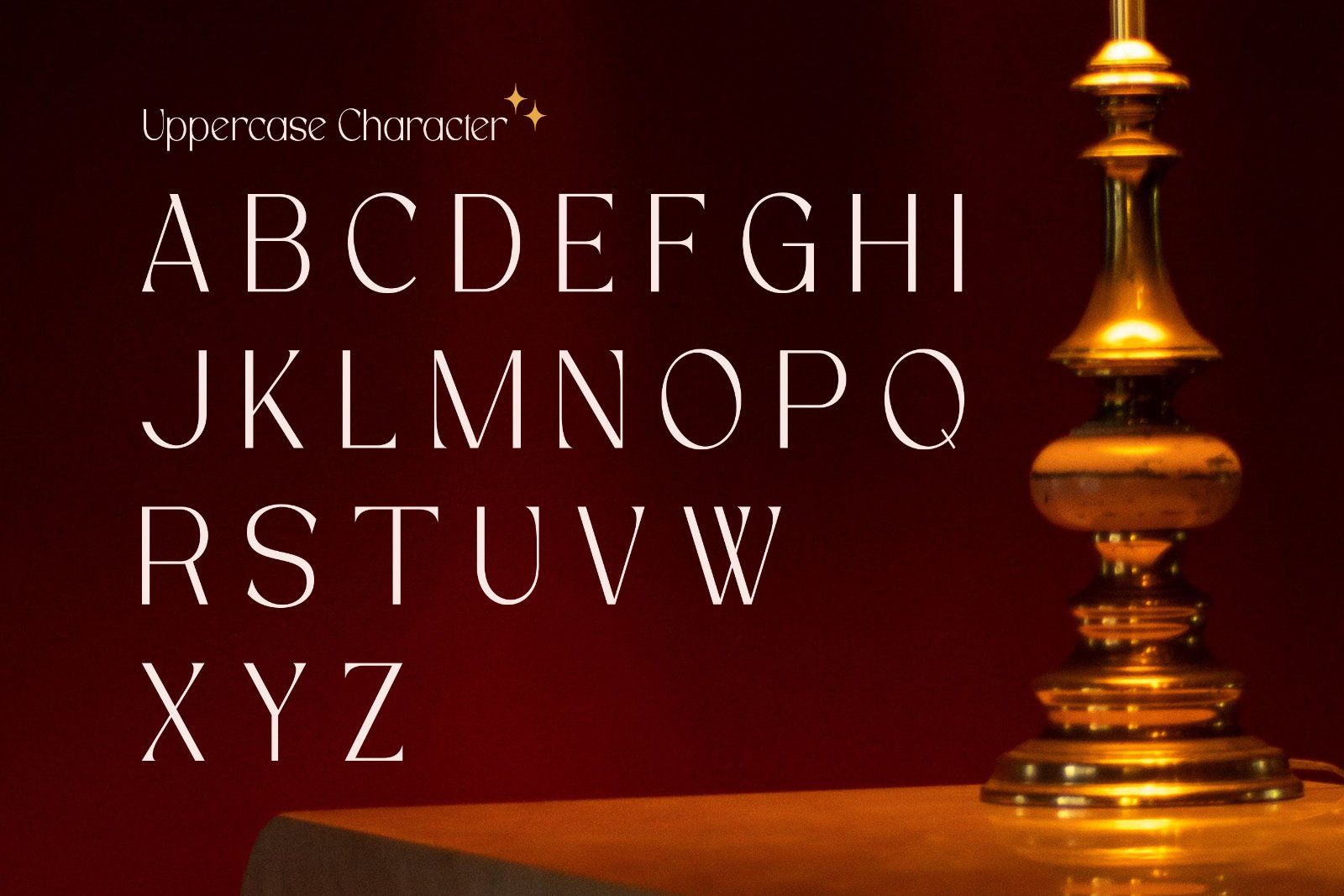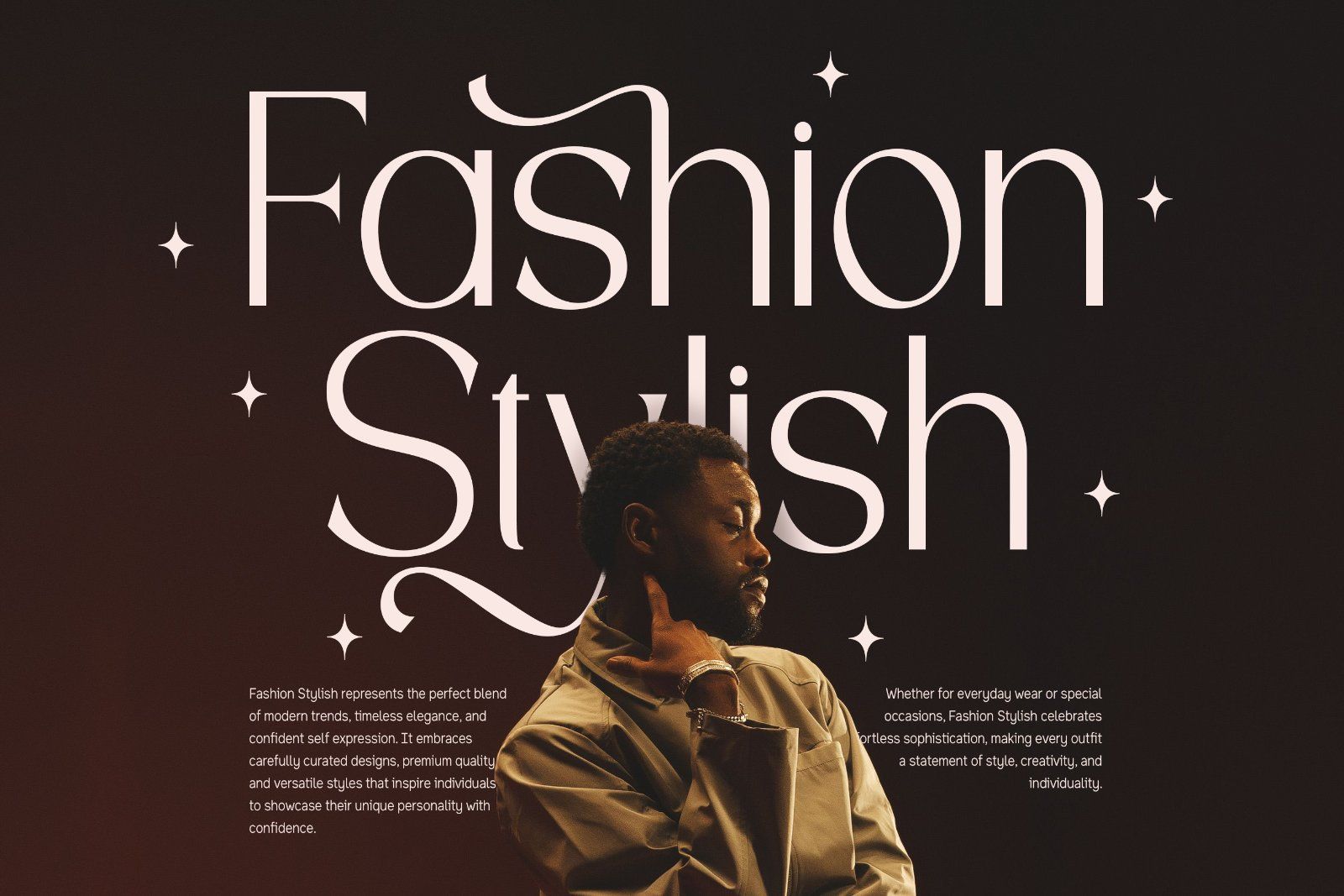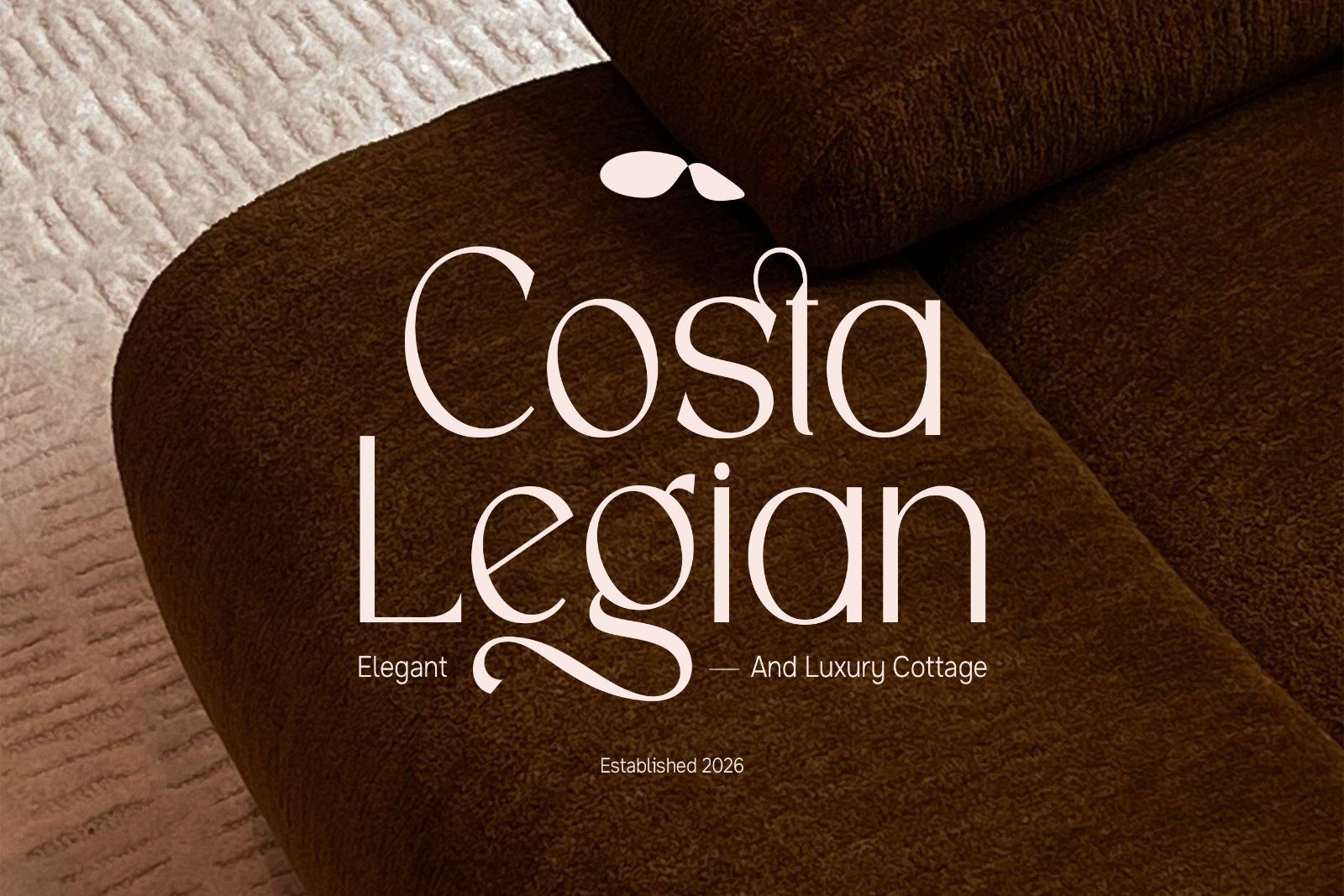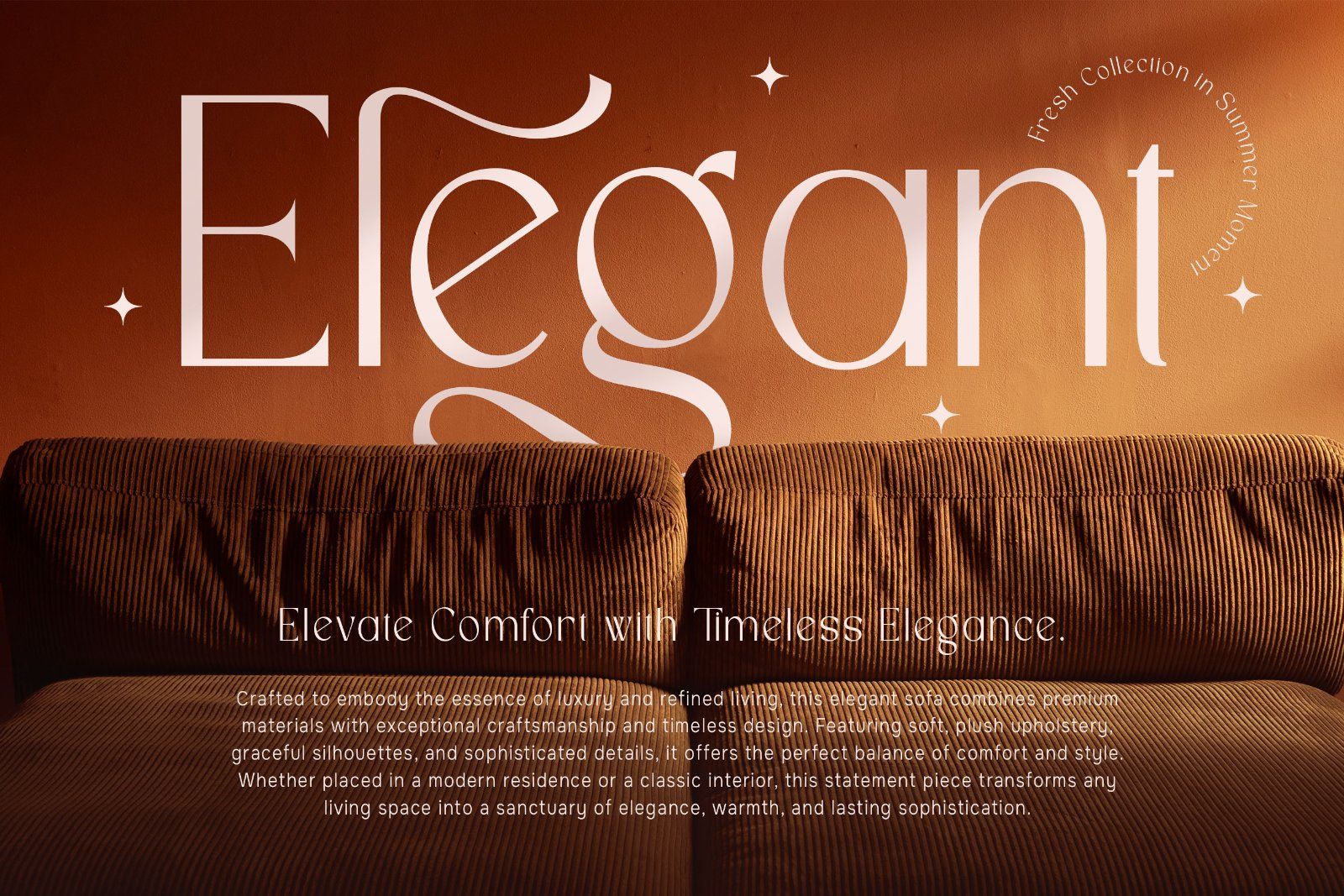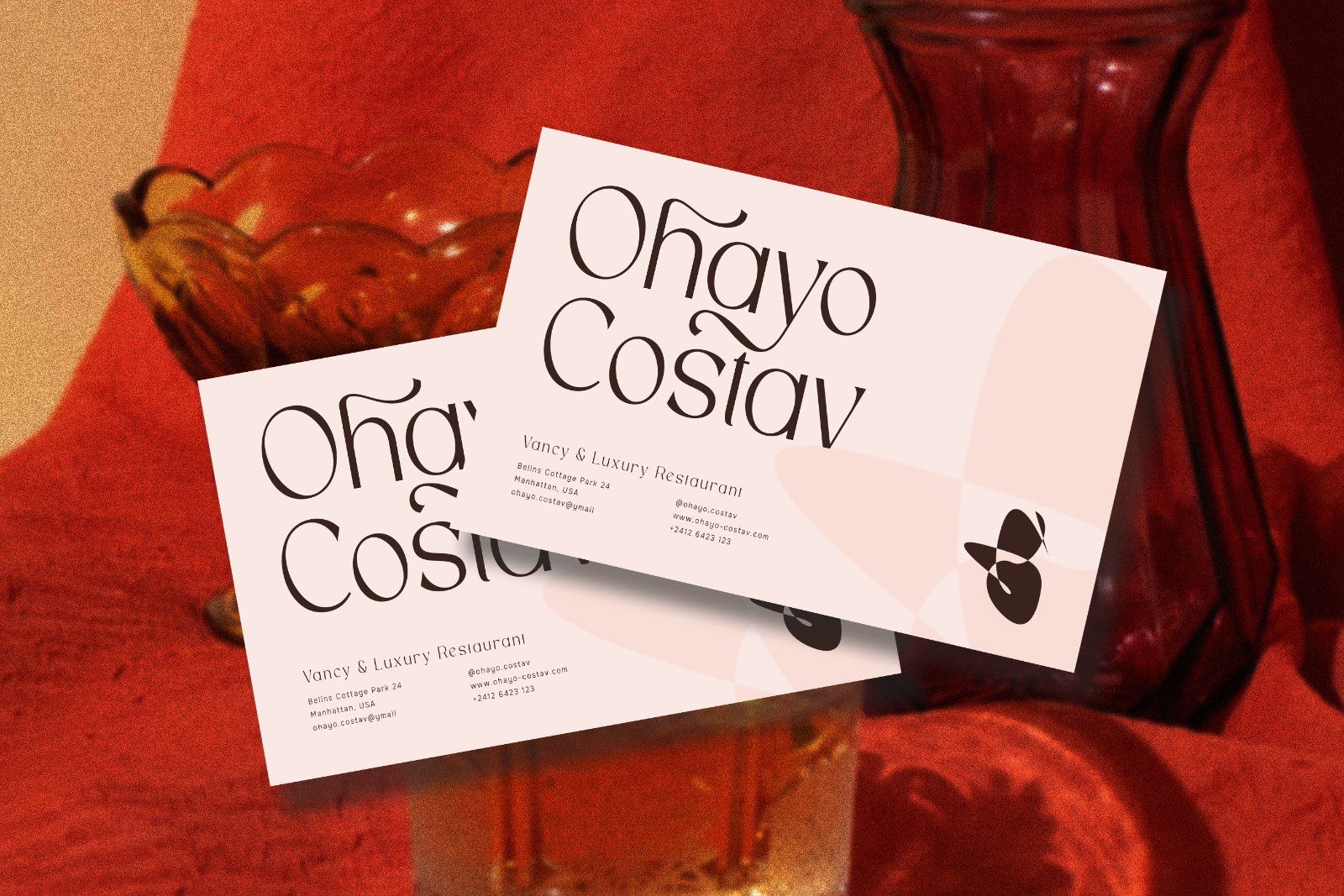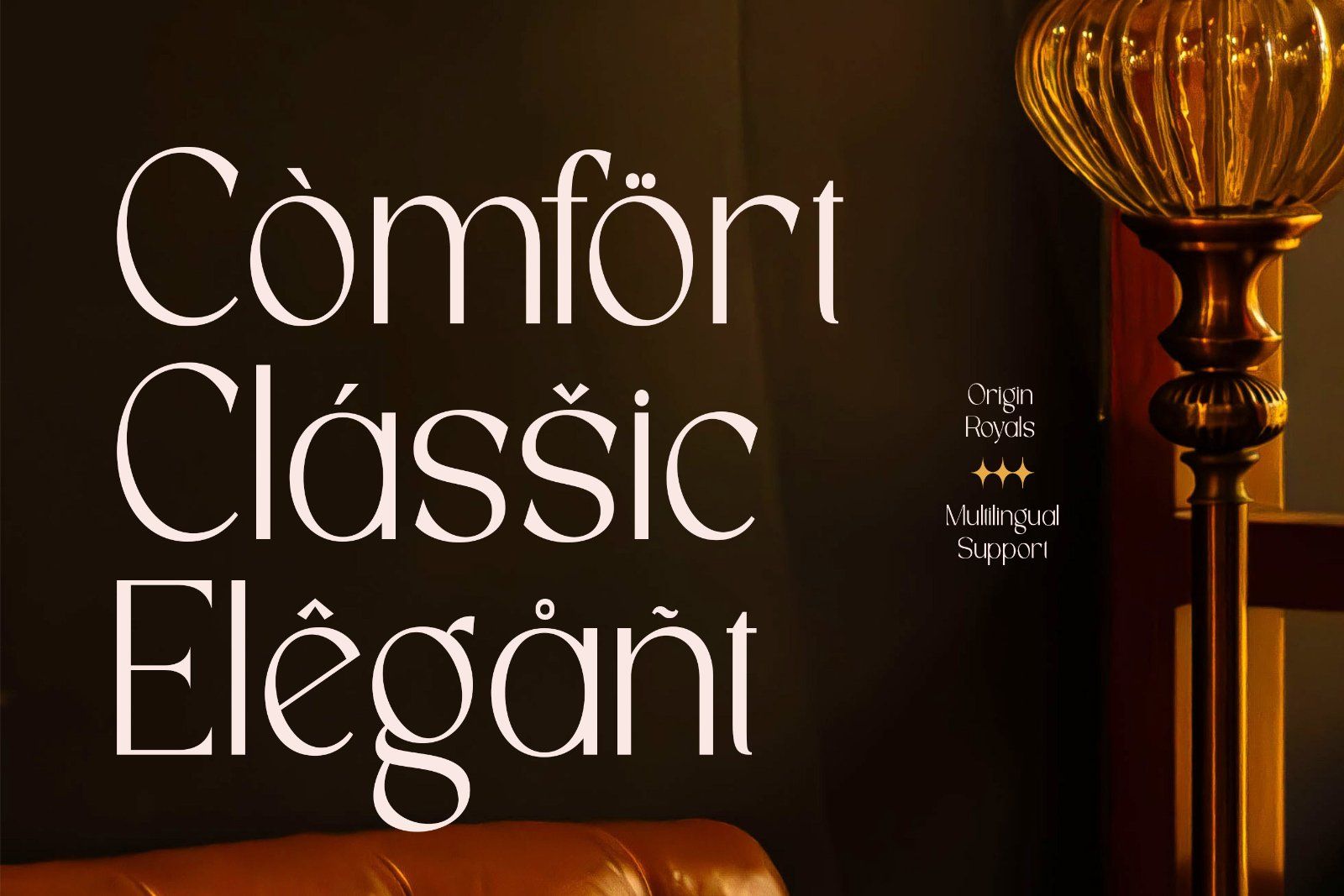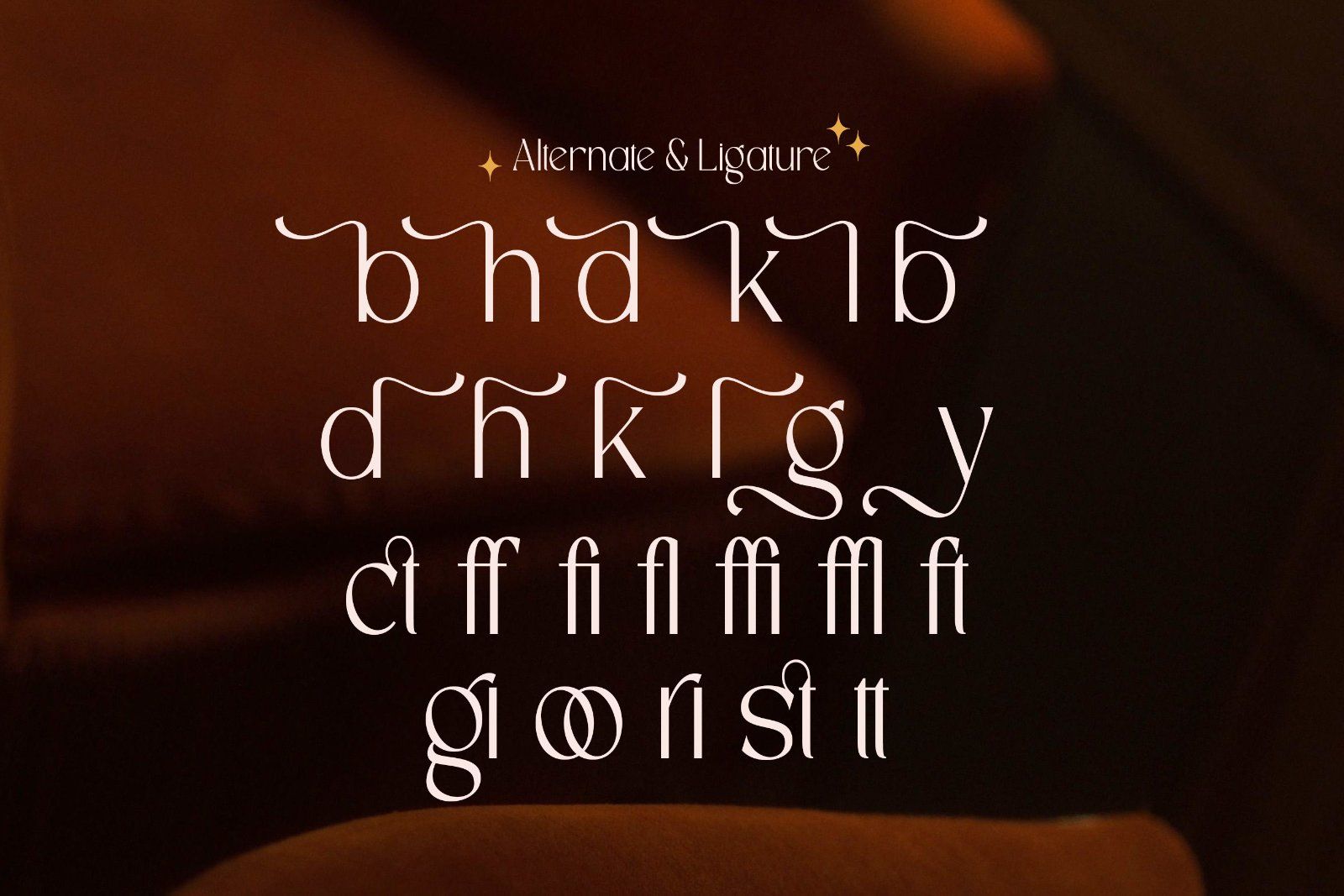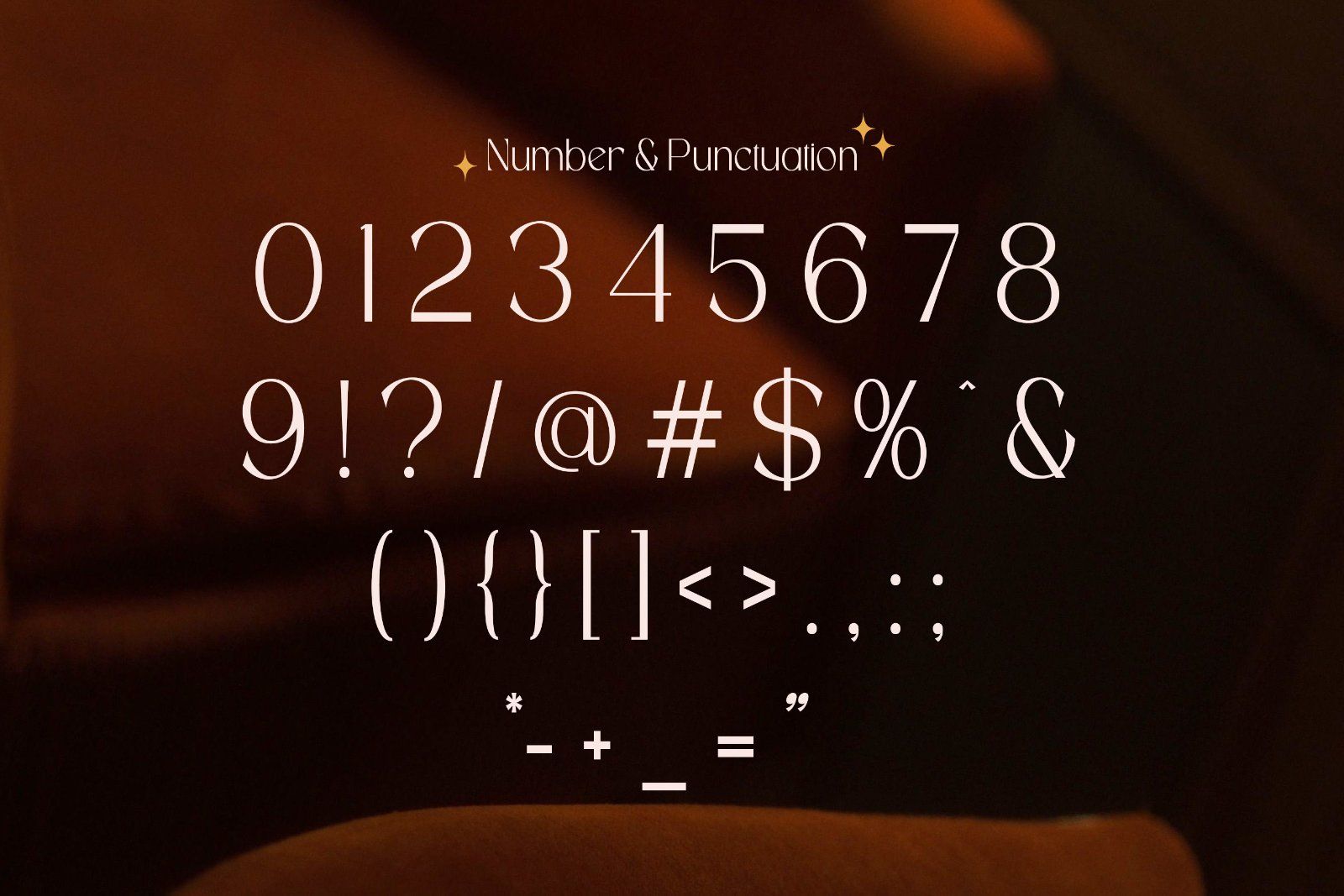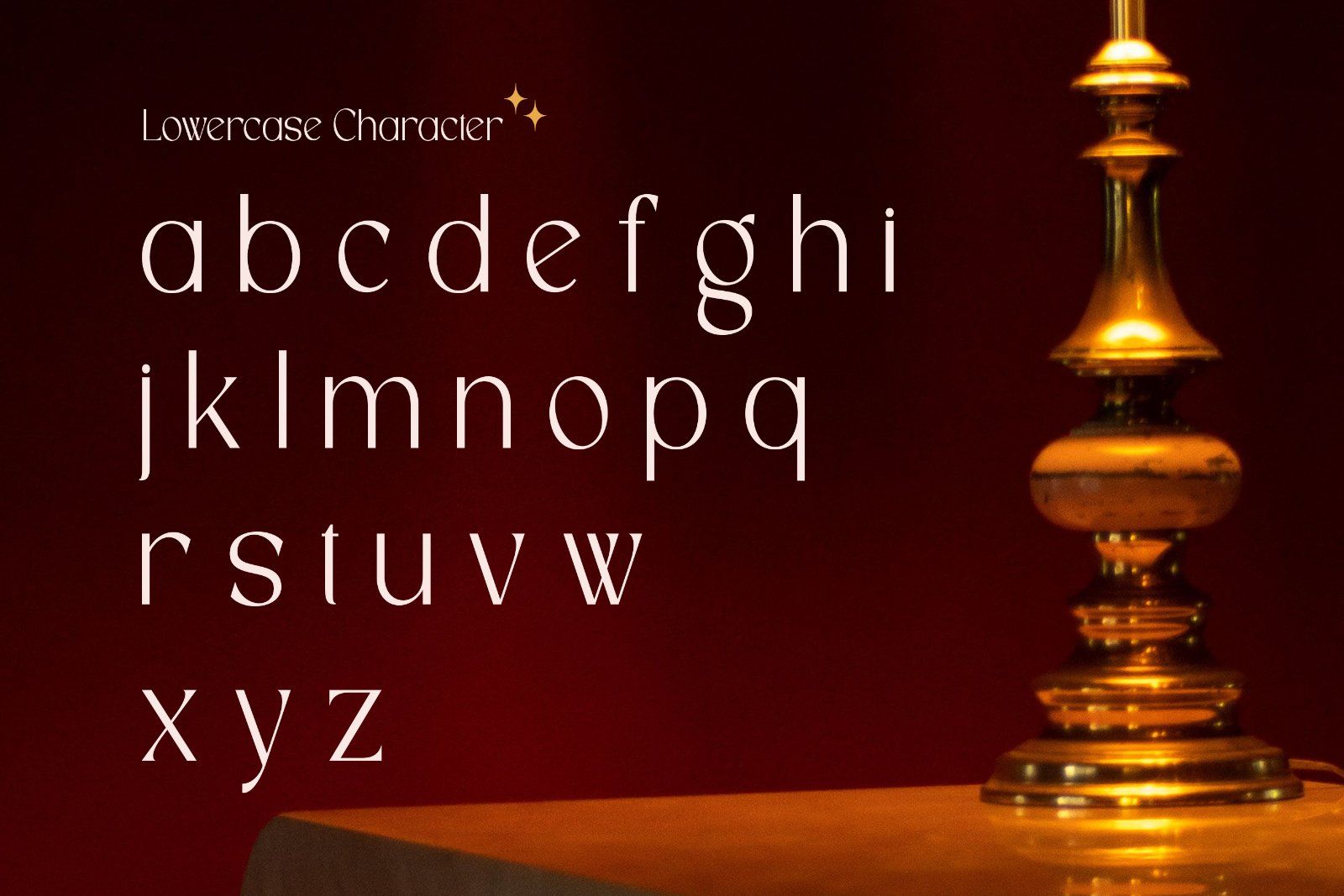
Origin Royals is a luxury sans serif font that embodies elegance through refined simplicity and contemporary sophistication. Designed with sleek letterforms, graceful proportions, and clean geometric precision, Origin Royals delivers a premium visual identity that feels confident, timeless, and effortlessly stylish. Every character is meticulously crafted to create typography that radiates exclusivity while maintaining exceptional readability across both print and digital media.
• Uppercase alphabet A-Z
• Lowercase alphabet a-z
• Numbers 0-9
• Some punctuation
• Some Alternates and Ligatures